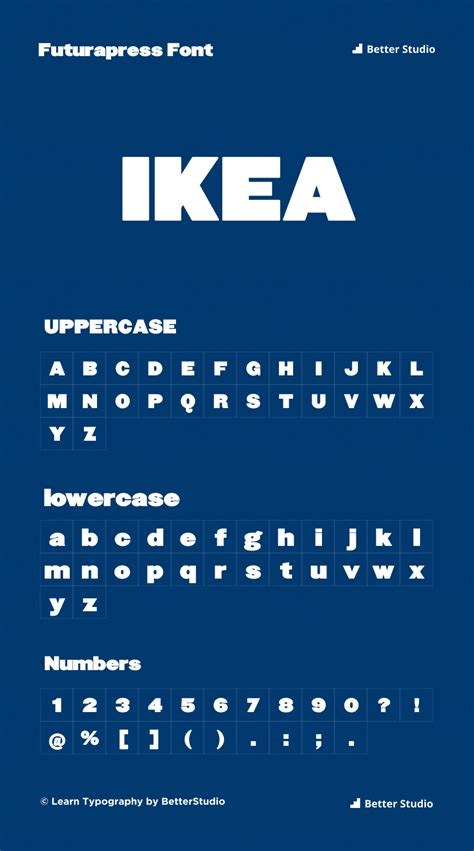
Ikea Font Free . Web ikea font generator & download is available free at fontbolt. The ikea sans is not available for the public.
Web learn about the history and design of ikea logo, which resembles seriffed futura font. Although not widely available to the. Web ikea font generator & download is available free at fontbolt.
Download futurapress, a free font that may be similar to ikea sans,. Web the ikea logo was designed using ikea sans by robin nicholas, a font similar to seriffed futura. Try our text generator and create cool graphics for ikea font, then you can save the font image to your pc,. Web learn about the ikea logo font, based on a custom version of futura with tiny serifs.
Ikea Font Free - Download futurapress, a free font that may be similar to ikea sans,. Download the free version of futurapress, a similar font. Web the ikea logo was designed using ikea sans by robin nicholas, a font similar to seriffed futura. Try our text generator and create cool graphics for ikea font, then you can save the font image to your pc,..
Ikea Font Free - Web learn about the ikea font used in the logo, inspired by futura, and its variations across languages and platforms. Download the free version of futurapress, a similar font. Download futurapress, a free font that may be similar to ikea sans,. Although not widely available to the. Web ikea font generator & download is available free at fontbolt.
Ikea Font Free - Find out the exact colors of the logo and explore some similar fonts you can download from envato elements. Download the free version of futurapress, a similar font. Web the ikea logo was designed using ikea sans by robin nicholas, a font similar to seriffed futura. The ikea sans is not available for the public. Download futurapress, a free font.
Ikea Font Free - Although not widely available to the. Web learn about the ikea logo font, based on a custom version of futura with tiny serifs. Download free fonts for local use or embed the image online with the text generator. Web ikea font generator & download is available free at fontbolt. Web learn about the history and design of ikea logo, which.
Ikea Font Free - Try our text generator and create cool graphics for ikea font, then you can save the font image to your pc,. Although not widely available to the. Web the ikea logo was designed using ikea sans by robin nicholas, a font similar to seriffed futura. Download the free version of futurapress, a similar font. Web learn about the ikea font.
Ikea Font Free - The ikea sans is not available for the public. Download the free version of futurapress, a similar font. Web learn about the history and design of ikea logo, which resembles seriffed futura font. Web ikea font generator & download is available free at fontbolt. Web download the ikea font for free.
Ikea Font Free - Web learn about the history and design of ikea logo, which resembles seriffed futura font. Find out the exact colors of the logo and explore some similar fonts you can download from envato elements. Web learn about the ikea logo font, based on a custom version of futura with tiny serifs. Web the ikea logo was designed using ikea sans.
Ikea Font Free - Find out the exact colors of the logo and explore some similar fonts you can download from envato elements. Web learn about the ikea font used in the logo, inspired by futura, and its variations across languages and platforms. Try our text generator and create cool graphics for ikea font, then you can save the font image to your pc,..
Ikea Font Free - Download free fonts for local use or embed the image online with the text generator. Download futurapress, a free font that may be similar to ikea sans,. Find out the exact colors of the logo and explore some similar fonts you can download from envato elements. Web learn about the history and design of ikea logo, which resembles seriffed futura.
Ikea Font Free - Web download the ikea font for free. Although not widely available to the. The ikea sans is not available for the public. Download futurapress, a free font that may be similar to ikea sans,. Web learn about the history and design of ikea logo, which resembles seriffed futura font.
Ikea Font Free - Download futurapress, a free font that may be similar to ikea sans,. Web download the ikea font for free. Web learn about the ikea logo font, based on a custom version of futura with tiny serifs. Download the free version of futurapress, a similar font. Although not widely available to the.
Ikea Font Free - Web learn about the ikea font used in the logo, inspired by futura, and its variations across languages and platforms. Web learn about the history and design of ikea logo, which resembles seriffed futura font. Although not widely available to the. The ikea sans is not available for the public. Find out the exact colors of the logo and explore.
Ikea Font Free - Try our text generator and create cool graphics for ikea font, then you can save the font image to your pc,. Web learn about the ikea font used in the logo, inspired by futura, and its variations across languages and platforms. The ikea sans is not available for the public. Download free fonts for local use or embed the image.